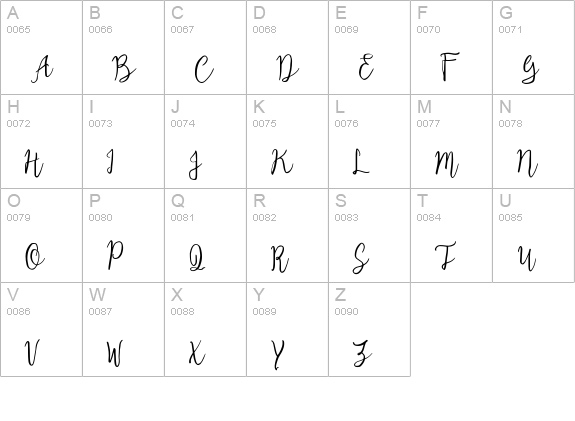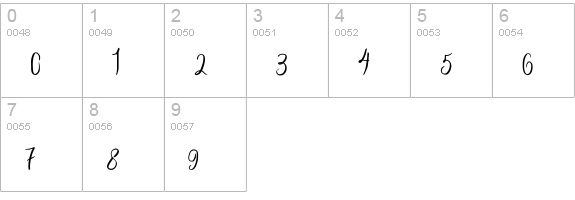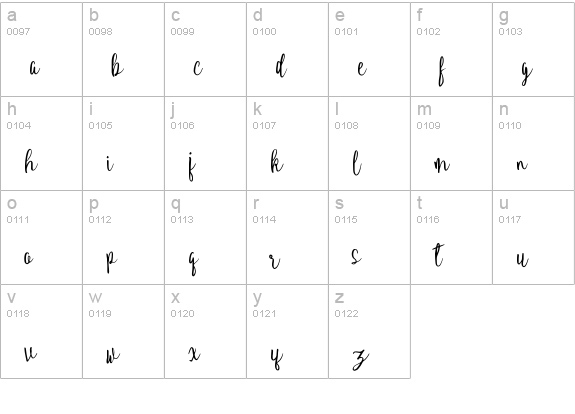
Sillebia Font Details
Sillebia is a free for personal use font in the Script > Handwritten category, designed by Paranesia. It has been downloaded 245 times and is available for Windows, Mac and Linux.
Introducing the elegant and versatile Sillebia font, a stunning typeface that effortlessly combines sophistication with modernity. With its graceful curves and clean lines, Sillebia is perfect for a wide range of design projects including branding, packaging, invitations, and more.
This exquisite font is designed to make a lasting impression and elevate your projects to new heights. Its timeless elegance and unique character will captivate your audience and leave a lasting impact.